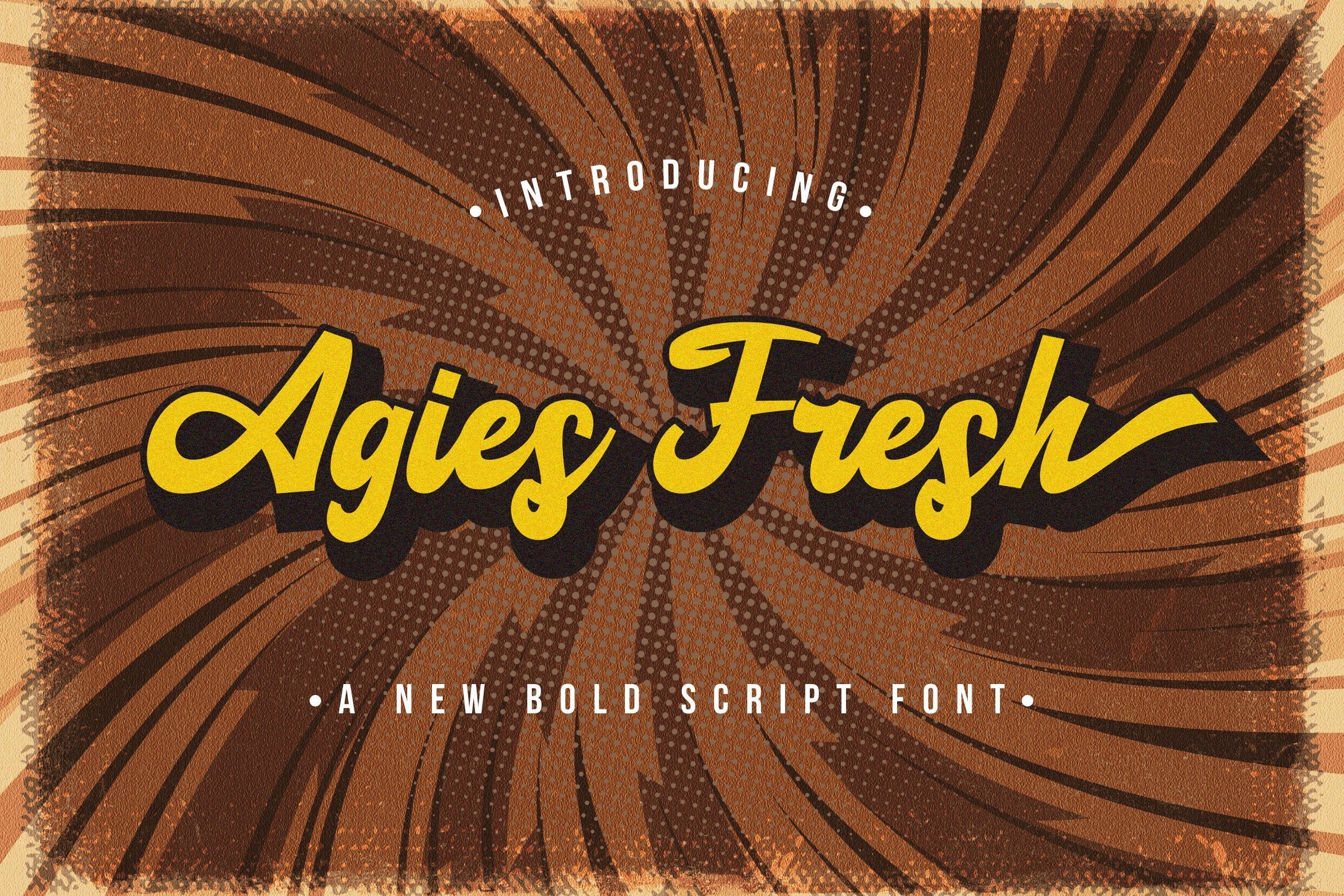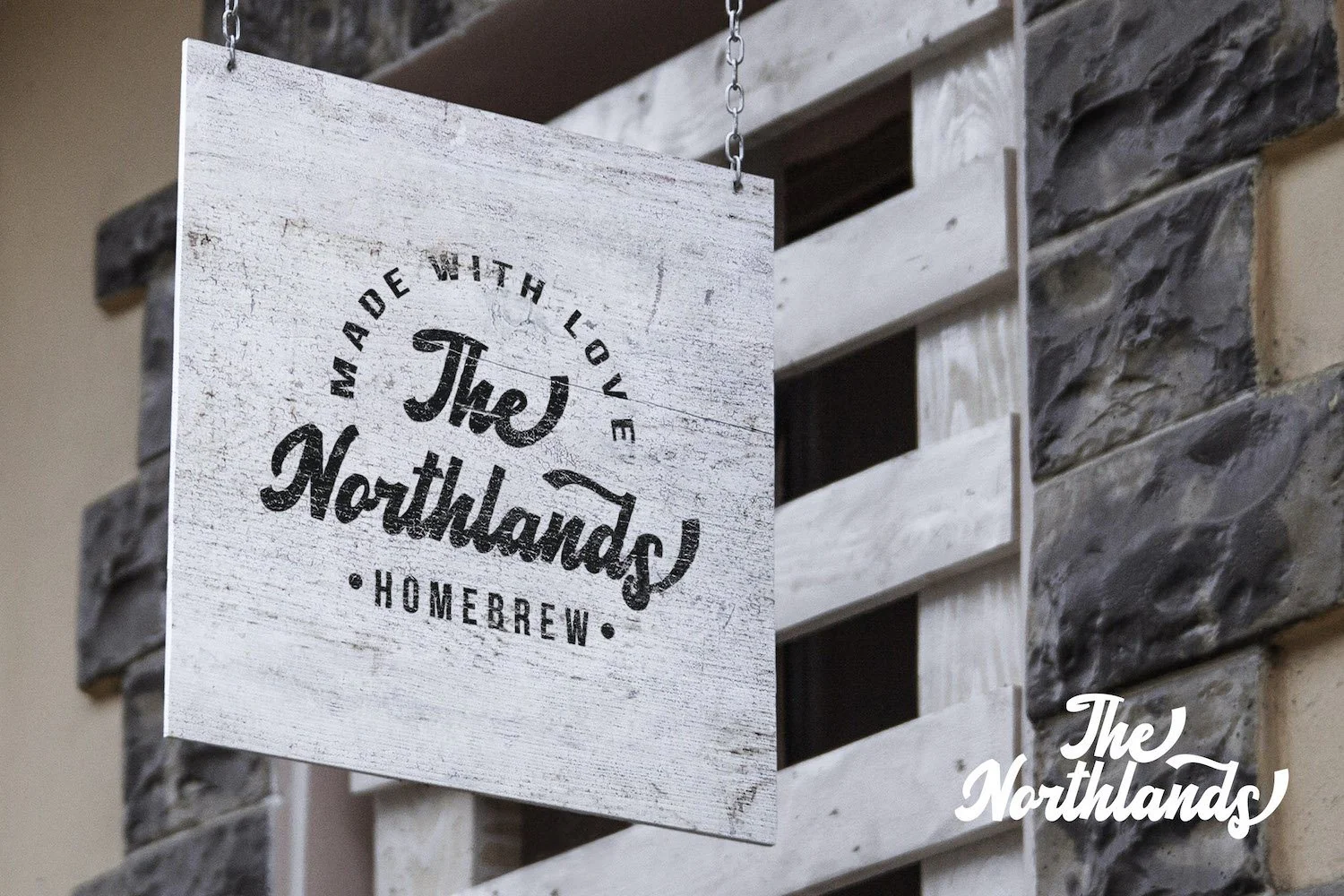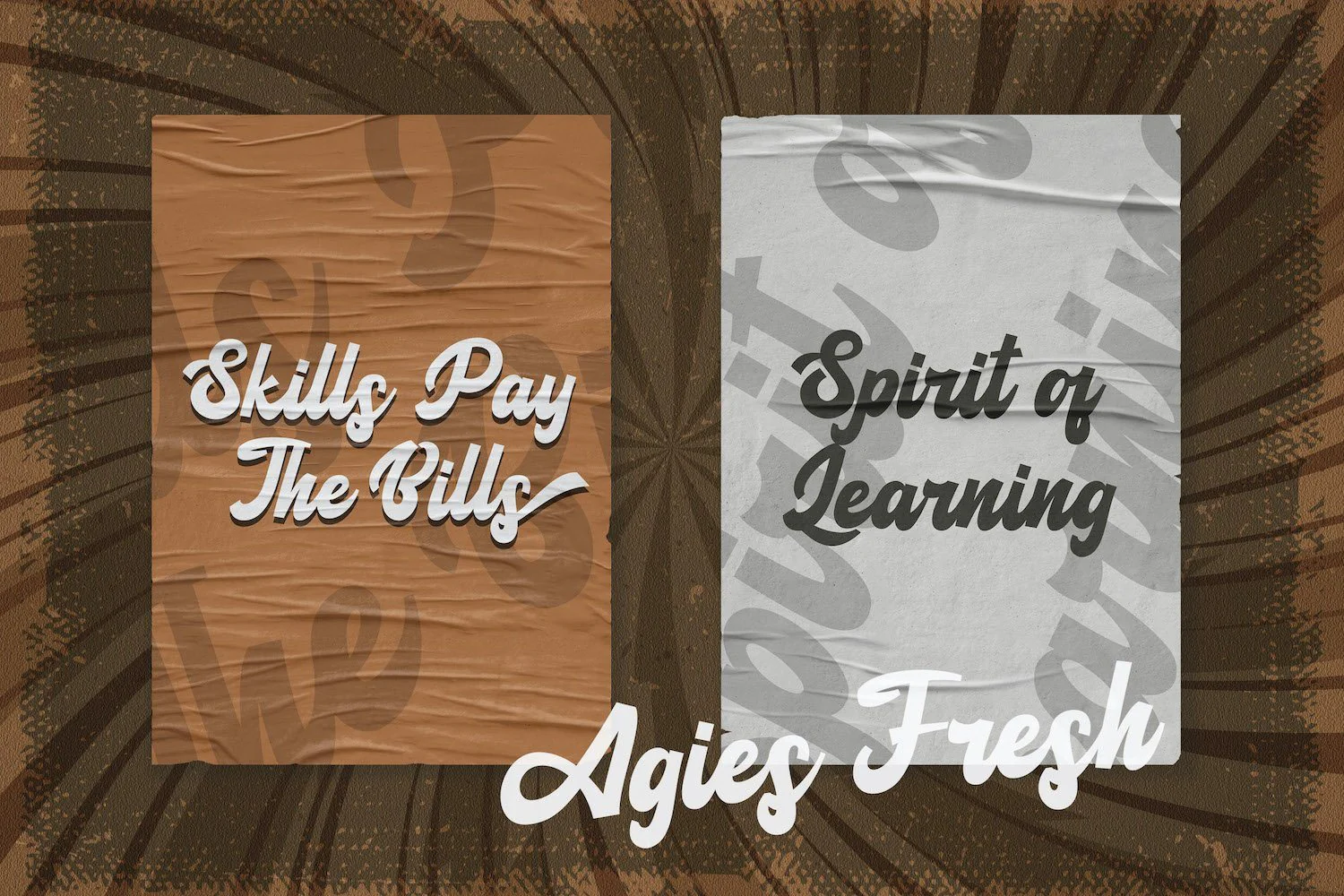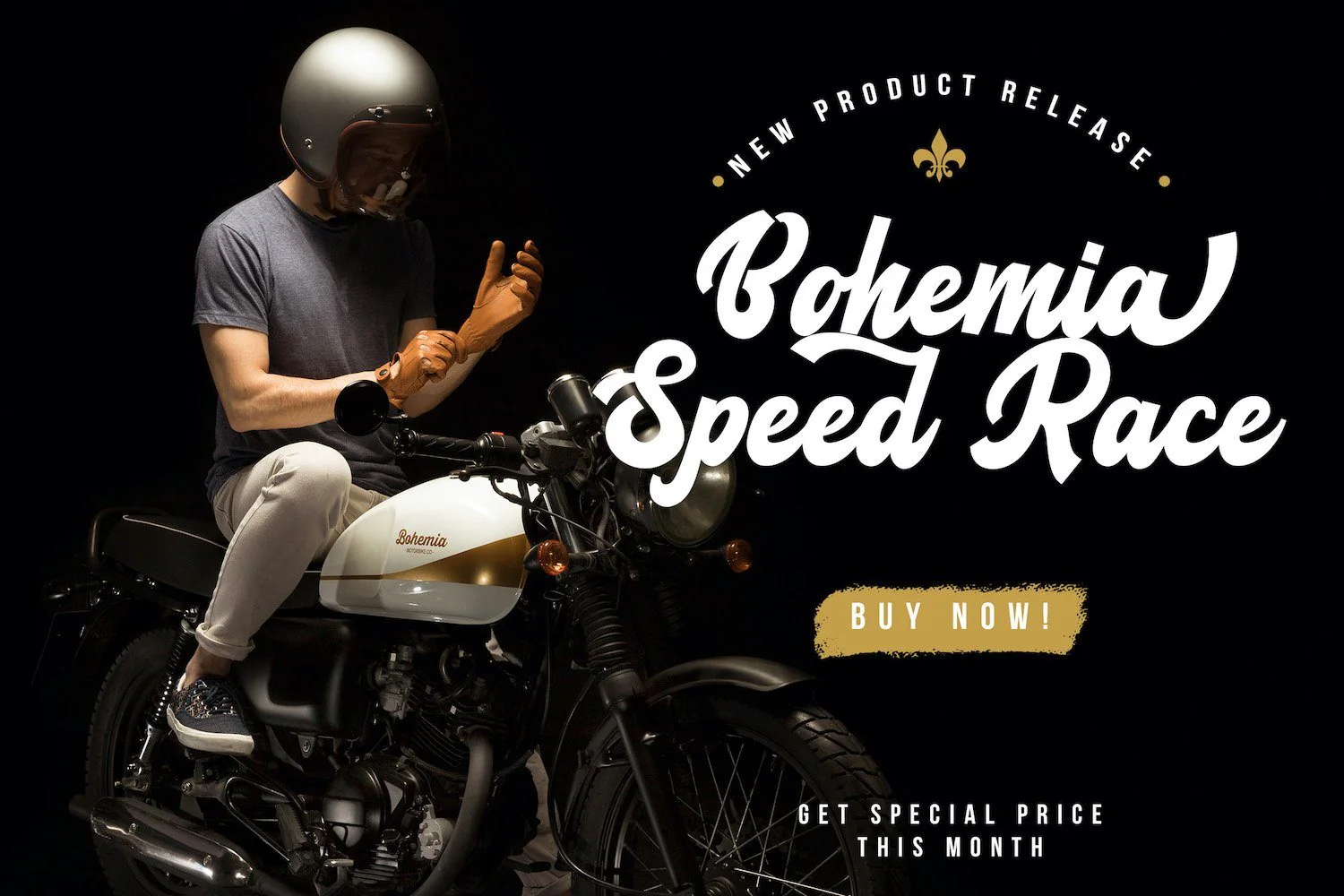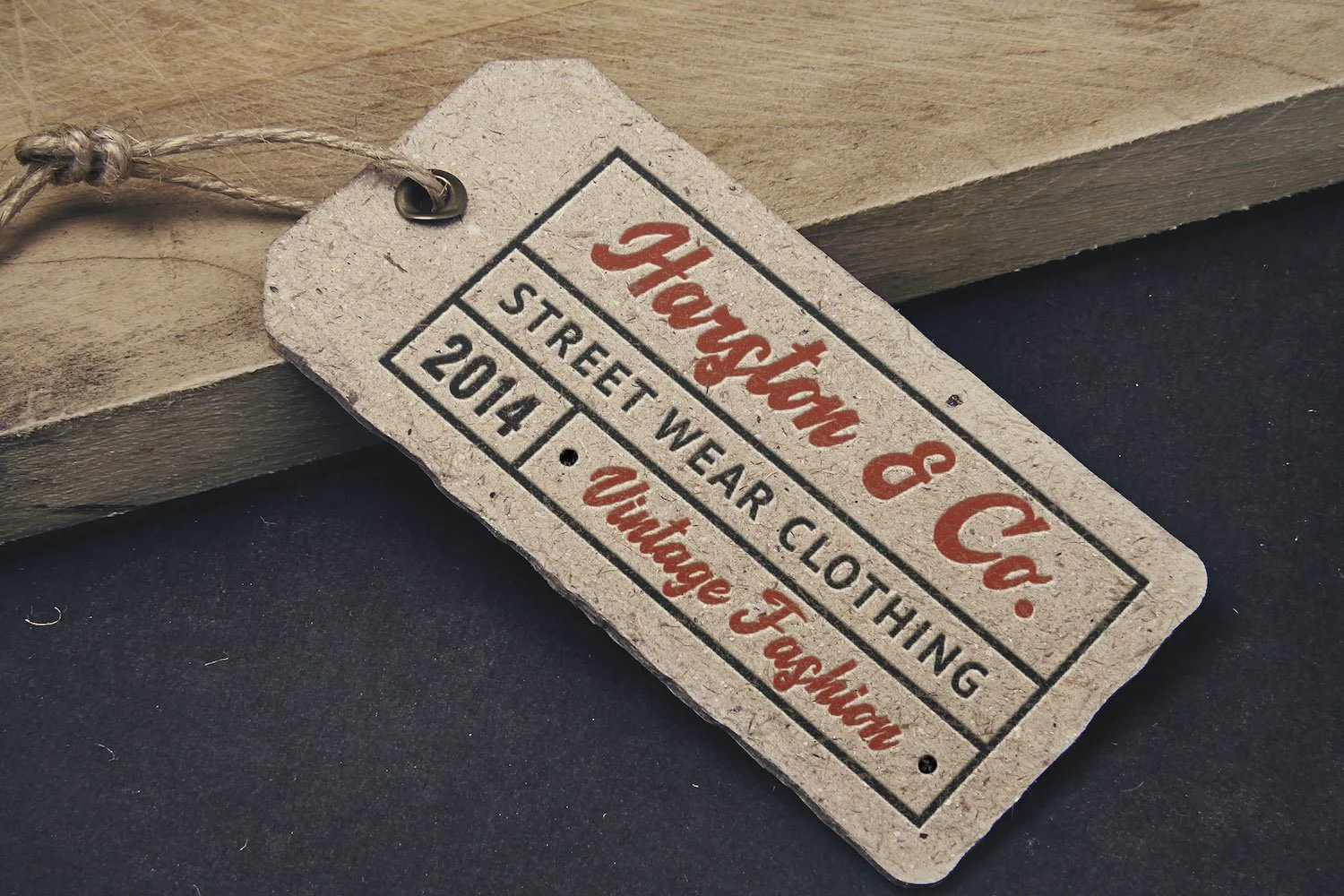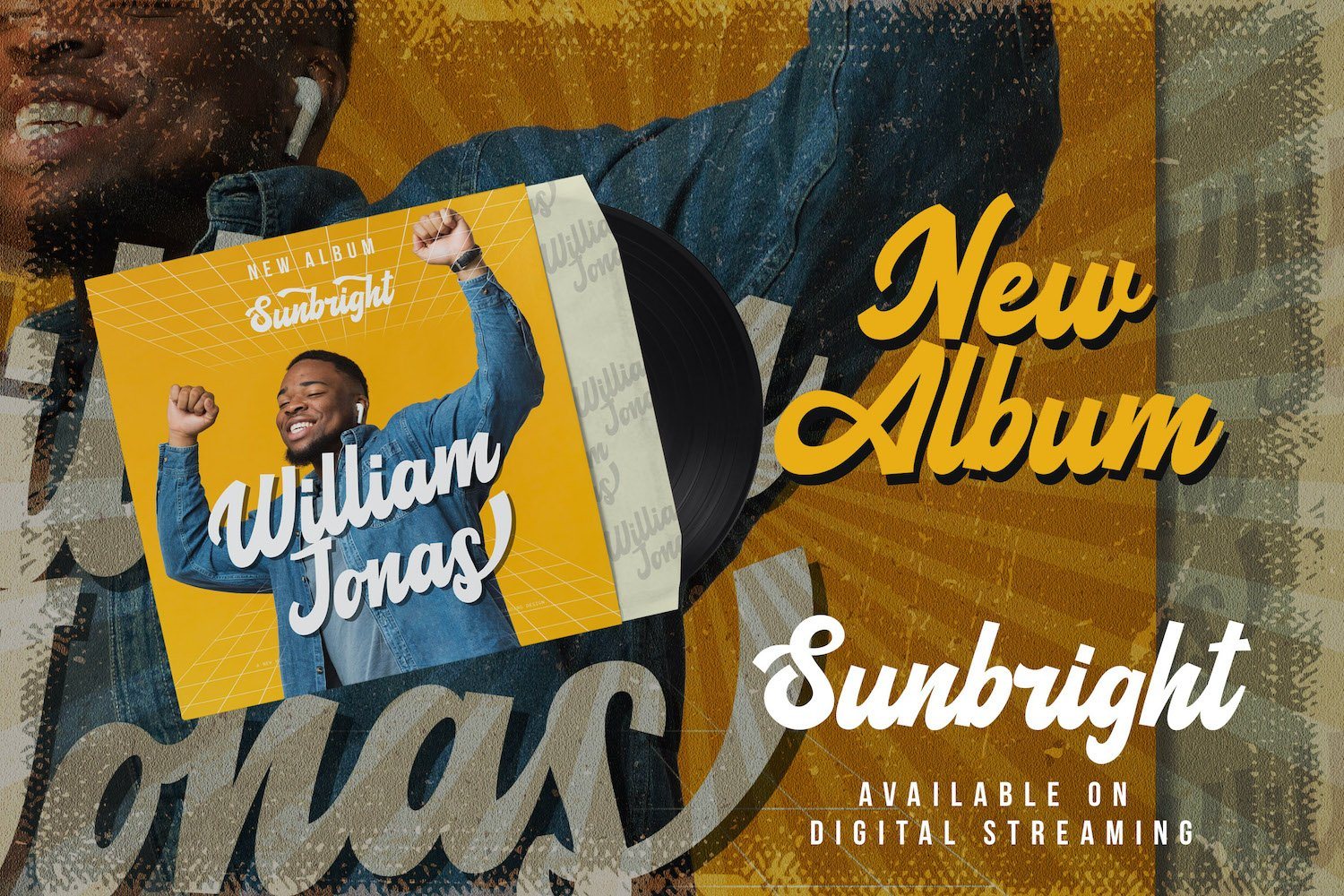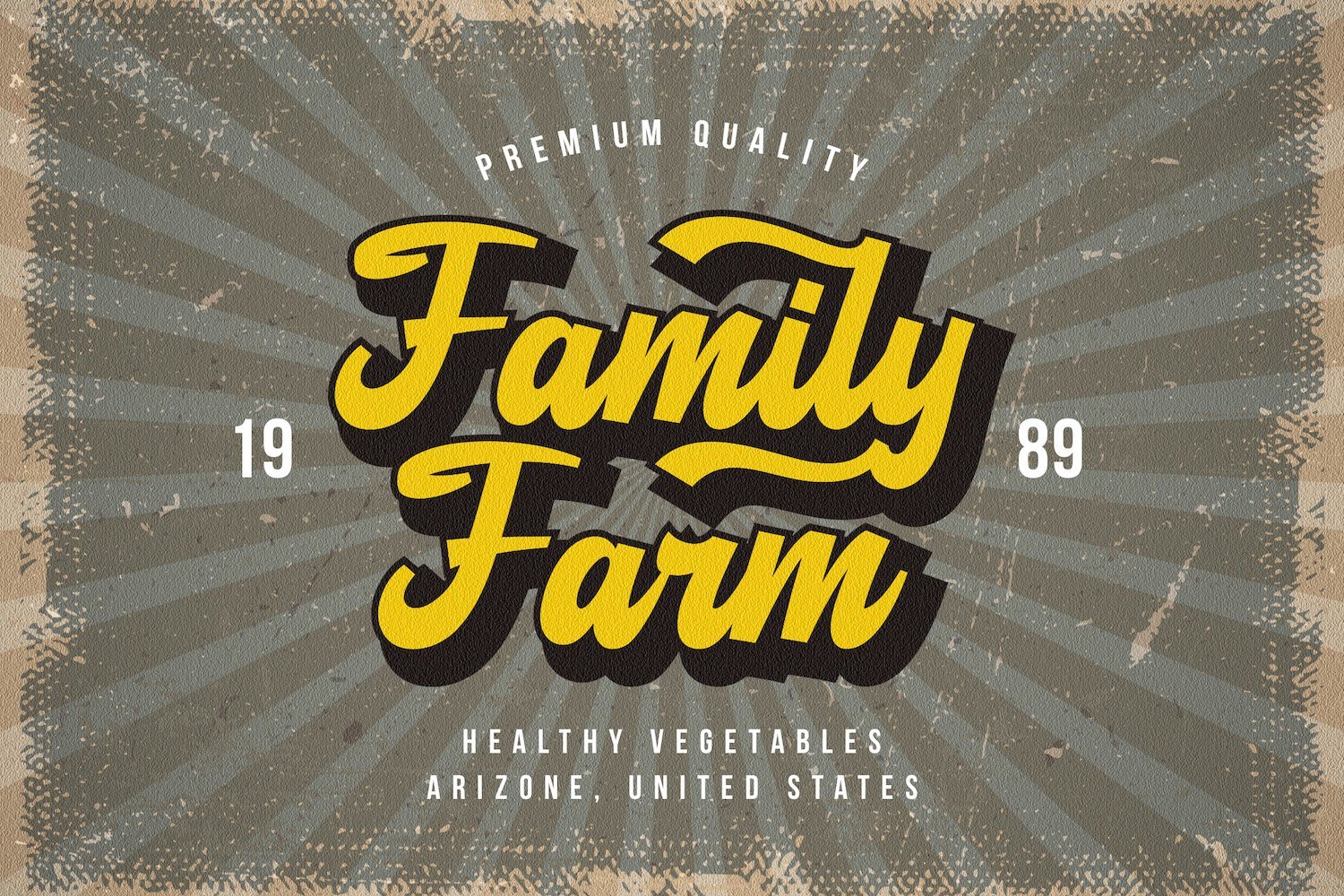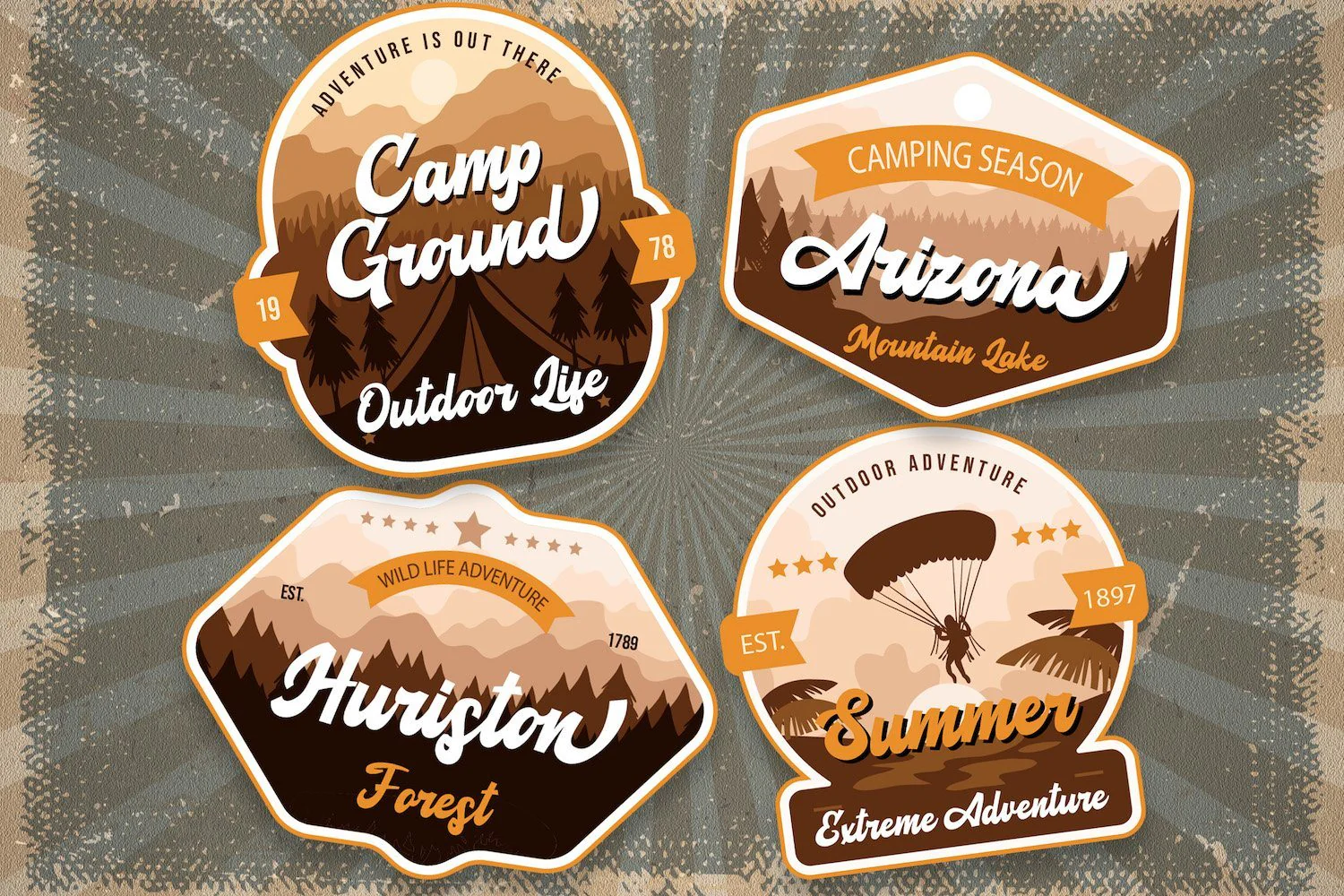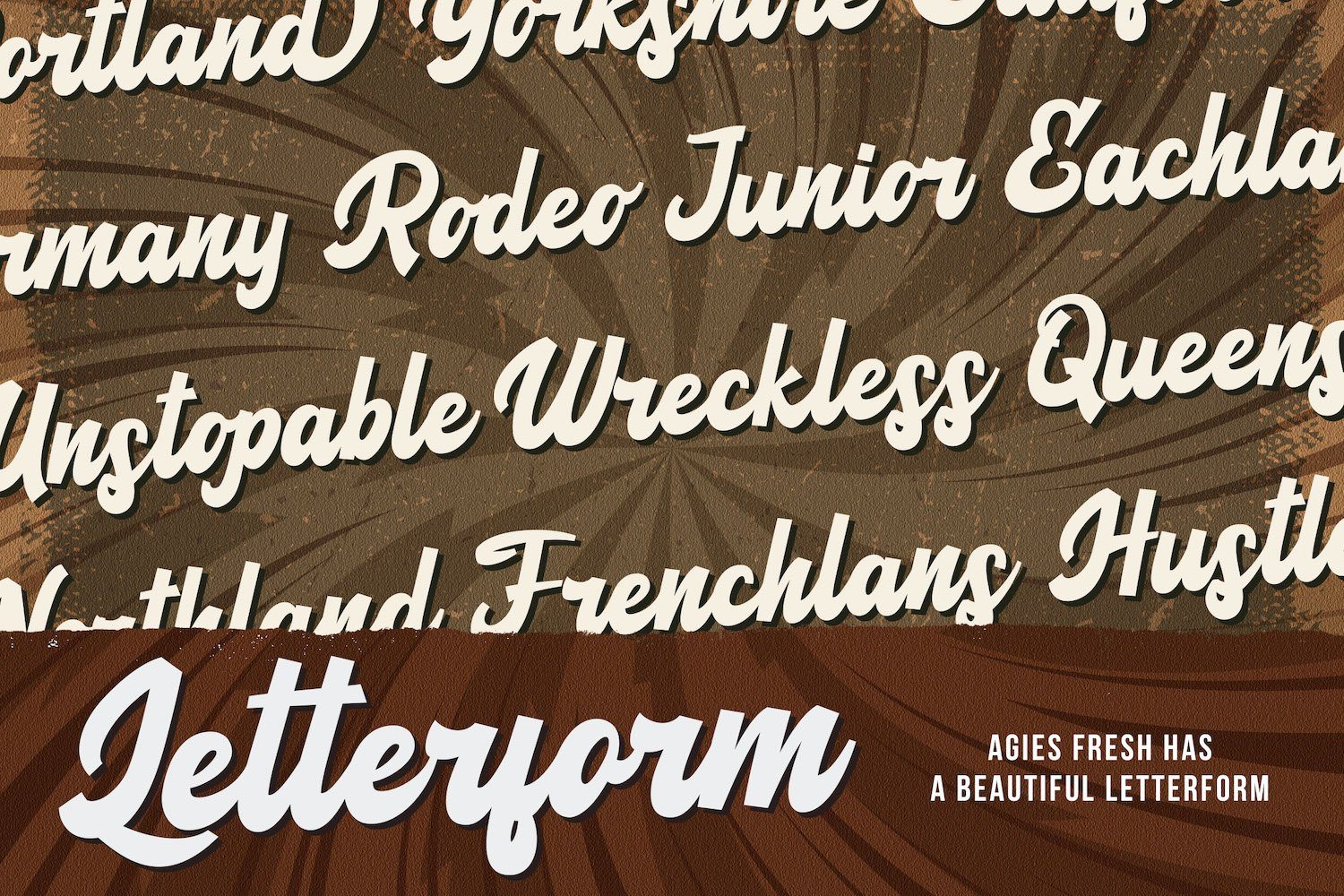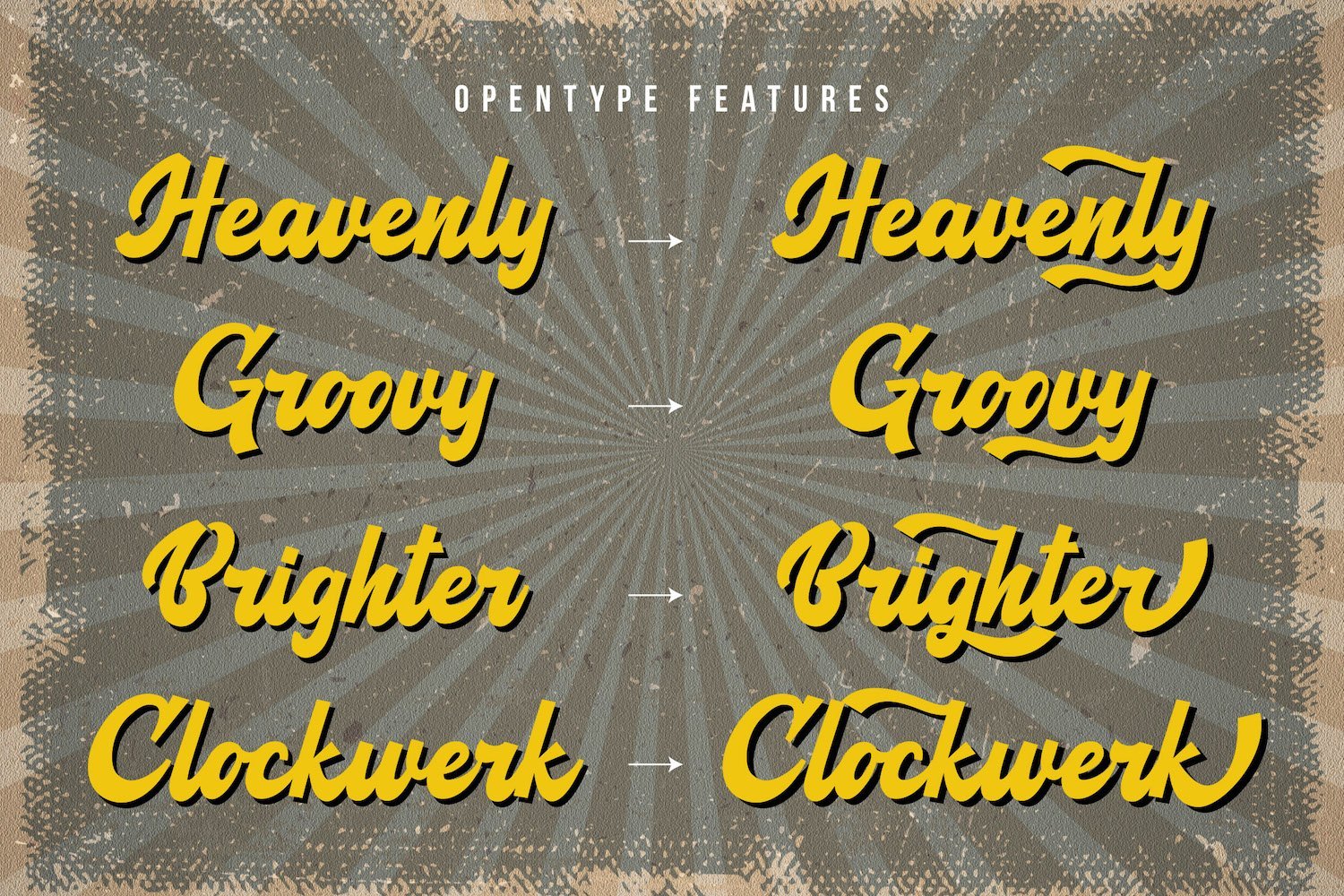
Agies Fresh - Retro Bold Script Font
Introducing Agies Fresh - Retro Bold Script Font
Agies Fresh is a strong and bold script font. It is curved, rounded, and has an unique vintage style, that is perfect for branding. Add it to your most creative ideas and notice how it makes them come alive!
Introducing Agies Fresh - Retro Bold Script Font
Agies Fresh is a strong and bold script font. It is curved, rounded, and has an unique vintage style, that is perfect for branding. Add it to your most creative ideas and notice how it makes them come alive!